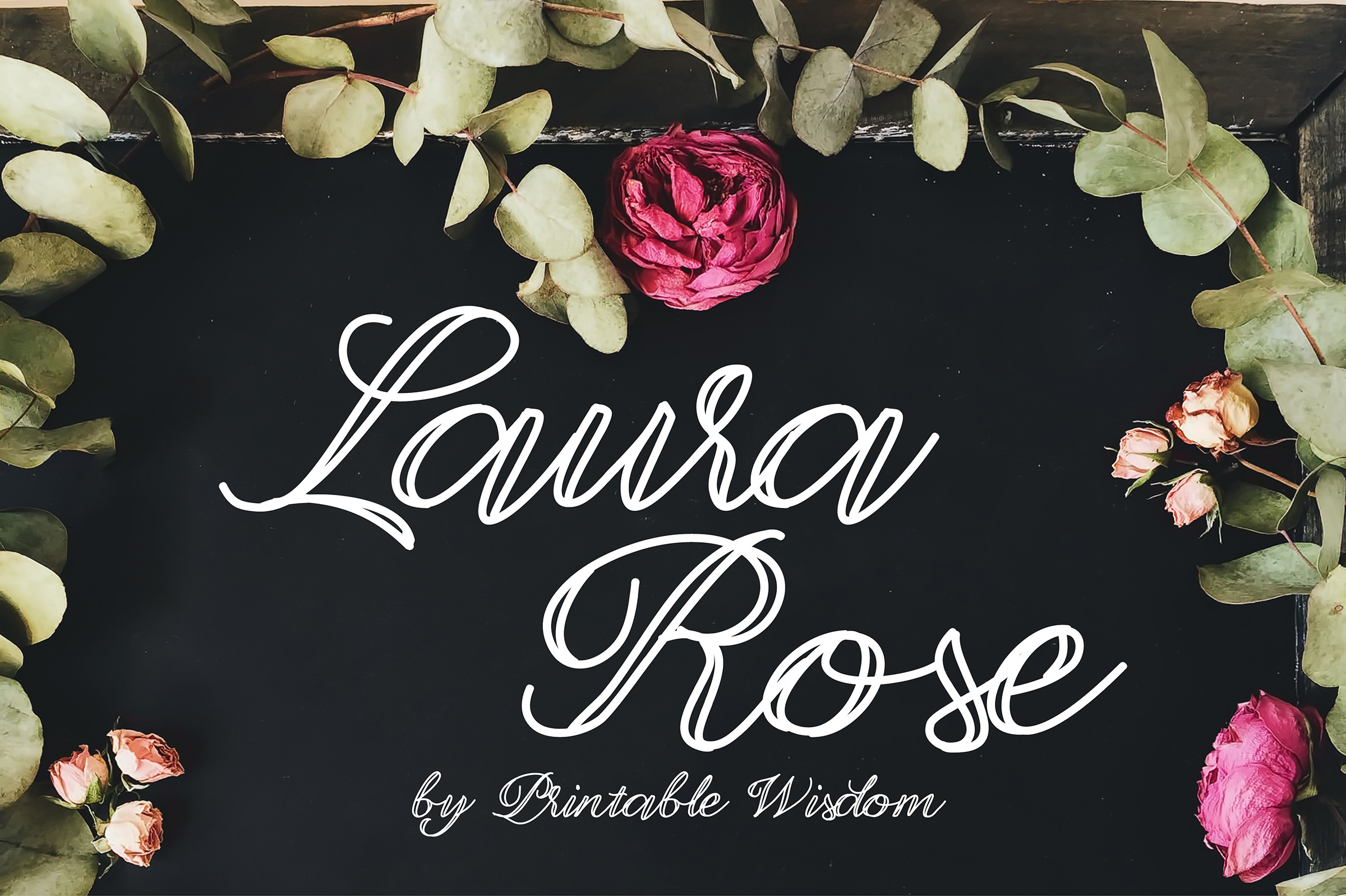
Laura Rose Font
This sketched calligraphy font was completely hand written with tons of character and unique style.
All standard punctuation and numbers are included.